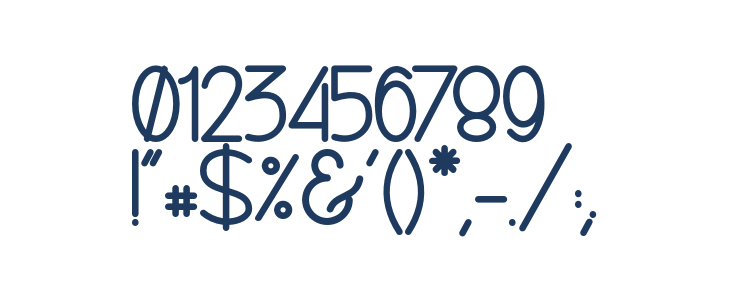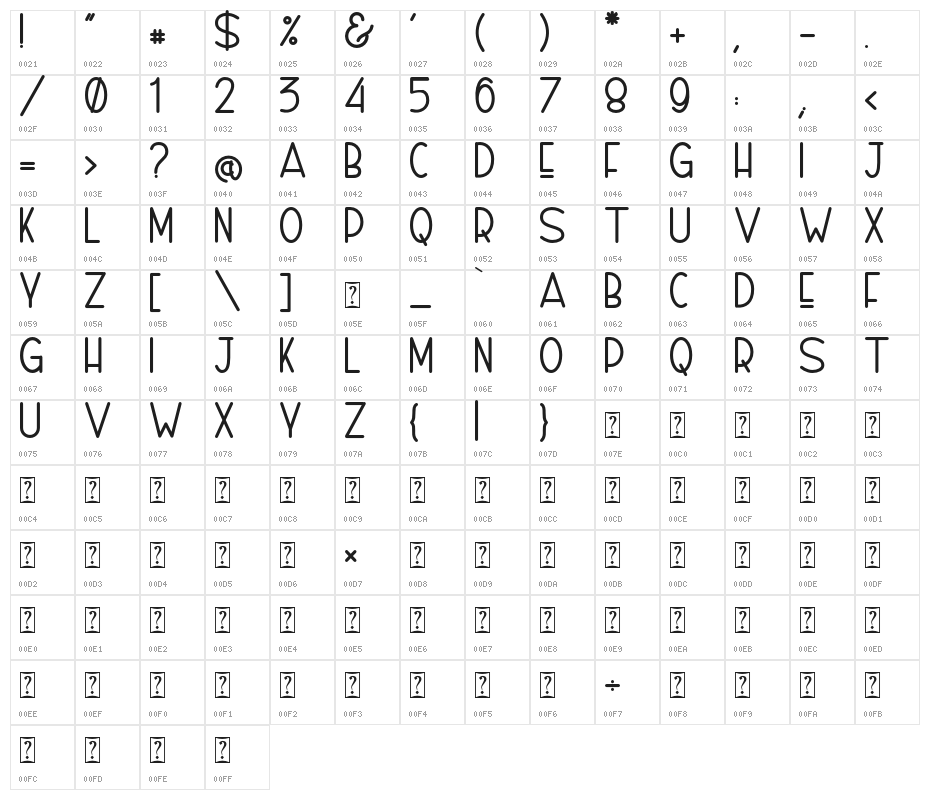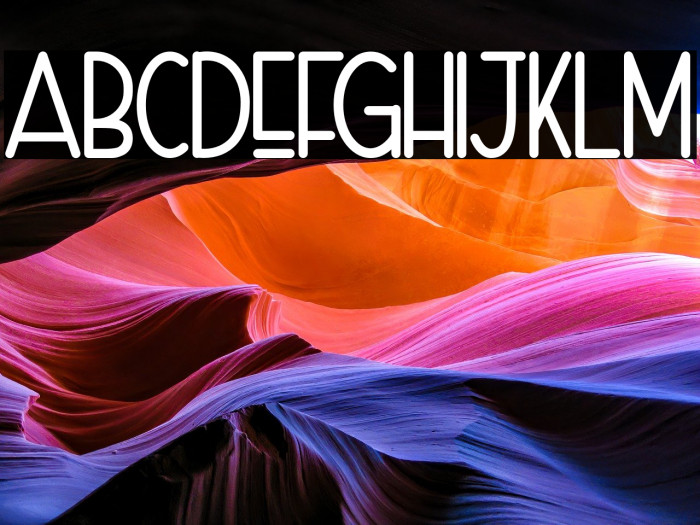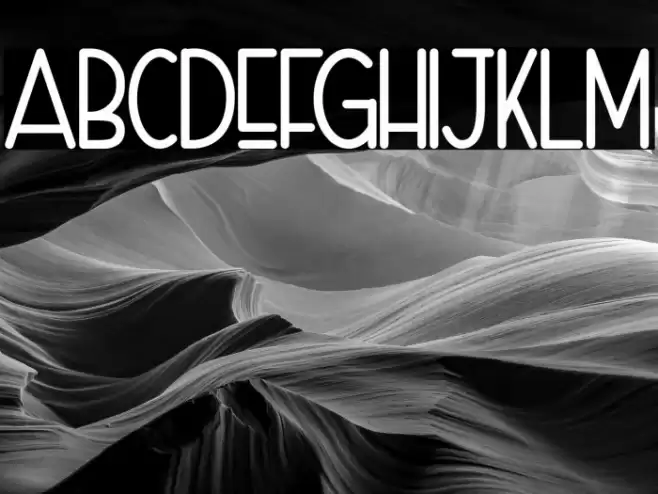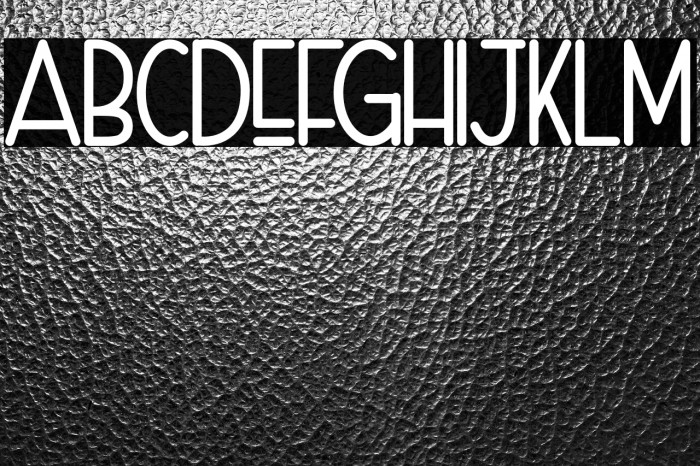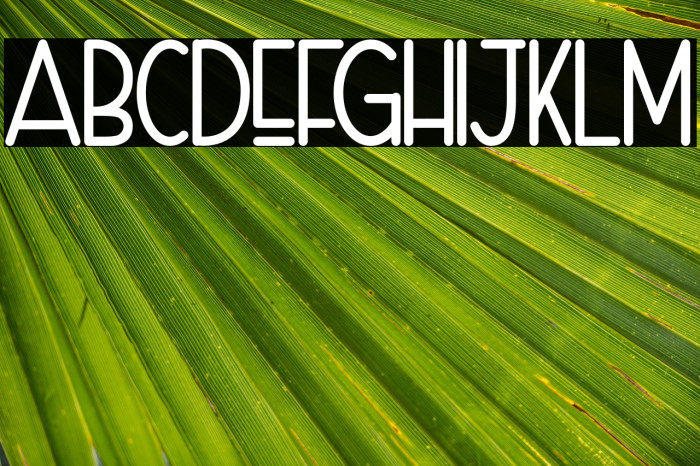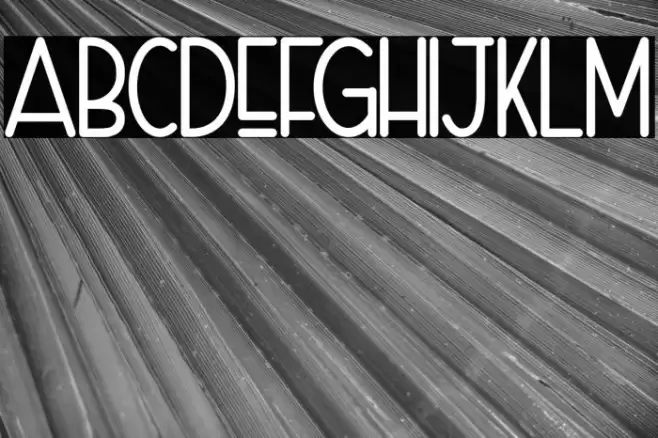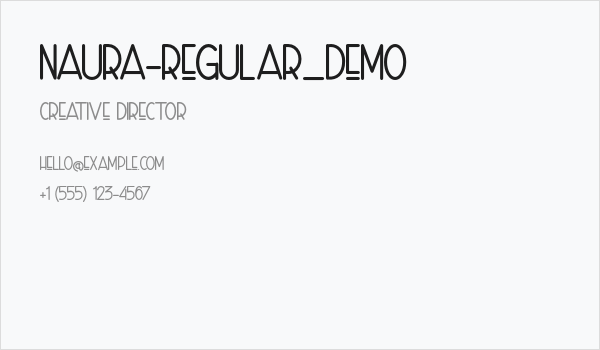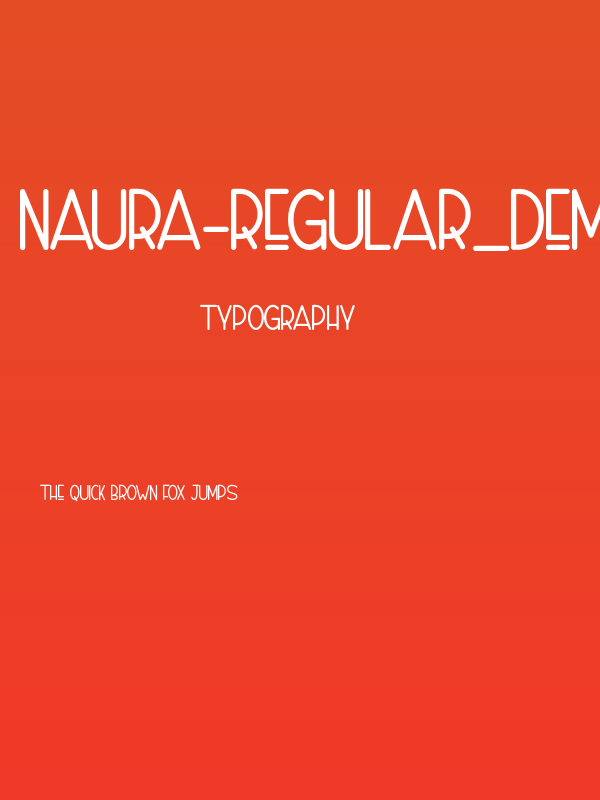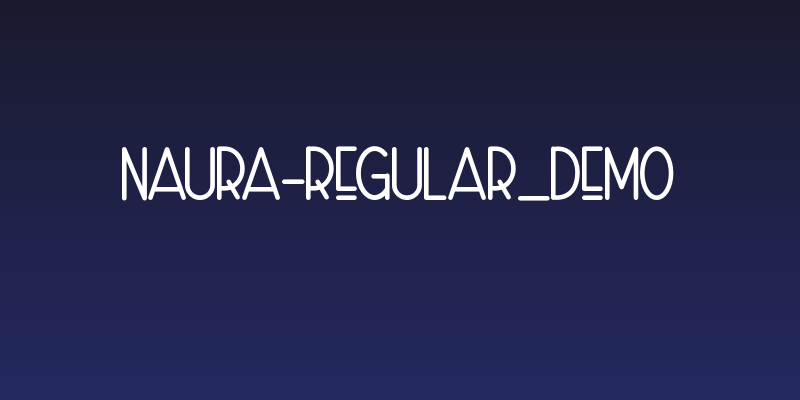
This font features a modern and sleek design with clean, rounded edges and a consistent stroke width throughout. The characters are tall and narrow, giving it an elegant and contemporary appearance. The uppercase and lowercase letters maintain a uniform style, with a slight geometric influence that adds to its modernity. The numerals and special characters are designed to complement the alphabet, maintaining the same rounded and smooth aesthetic. This font is highly legible and versatile, suitable for various design applications.